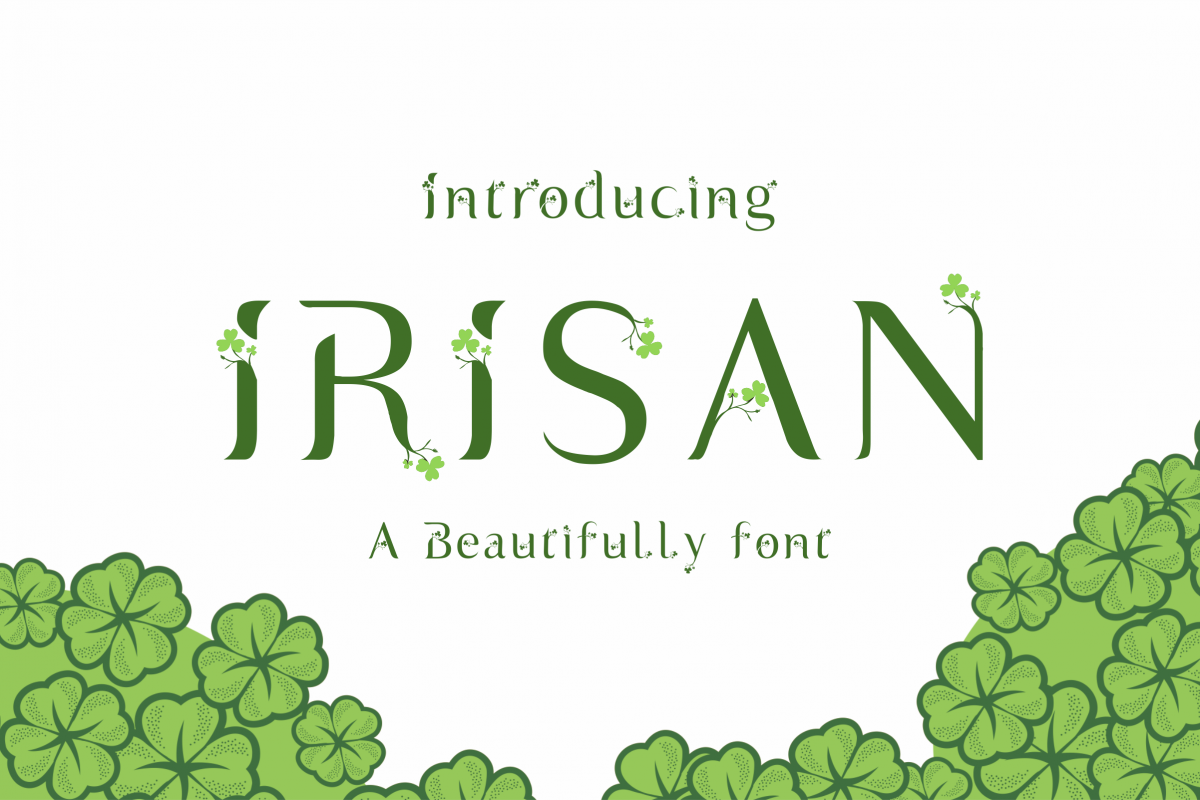
Irisan Font ( a Beatifully Font)
irisan-Regular
Irisan Decorative in Uppercase and lowercase letters so you'll be able to make your messages super-unique, logo, card, invitation for special event or in patrick day.file include otf and ttf file. thankyou.
Irisan Font ( a Beatifully Font)